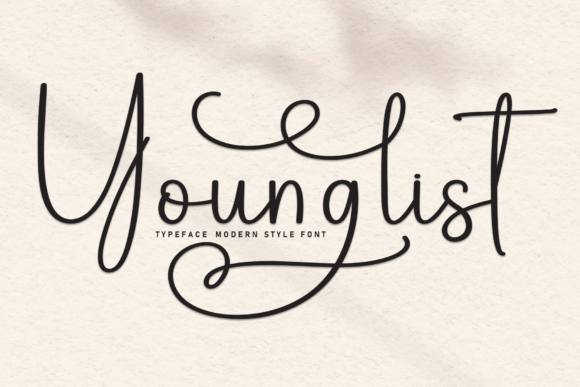
Step into the world of elegance and charm with Younglist, a captivating script font family that will make your heart dance and your projects shine. Experience the exquisite beauty of handwritten letters, crafted with love and passion by the talented andikastudio.
This enchanting script font possesses a versatile and captivating personality that will elevate any design project, from heartfelt wedding invitations to captivating headlines that demand attention. Younglist's meticulously crafted characters exude a tender and romantic aura, guaranteed to make your message resonate with warmth and allure.
Picture the joy of receiving a wedding invitation adorned with Younglist's graceful letters. The delicate strokes, flowing effortlessly like a gentle breeze, will transport your guests to a realm of heartfelt emotions. The font's elegant presence will set the tone for a celebration filled with love, laughter, and lifelong memories.
Imagine the impact of your headlines and marketing campaigns adorned with Younglist's striking characters. Its ability to capture attention is undeniable, pulling readers into your captivating words like magnets. Whether you're designing brochures, advertisements, or social media posts, Younglist will transform your message into a visual masterpiece that resonates with your audience.
With Younglist, the possibilities are endless. Its enchanting nature lends itself effortlessly to a multitude of creative ventures. Design breathtaking posters that evoke a sense of wonder and whimsy. Create logos that embody the essence of sophistication and artistry. Unleash your creativity and craft social media graphics that dance with grace and captivate your followers.
Immerse yourself in the world of Younglist and discover the endless possibilities it holds. Embrace its romantic charm, captivating elegance, and versatile nature. Let Younglist be your creative companion, guiding you toward stunning designs that leave a lasting impression.